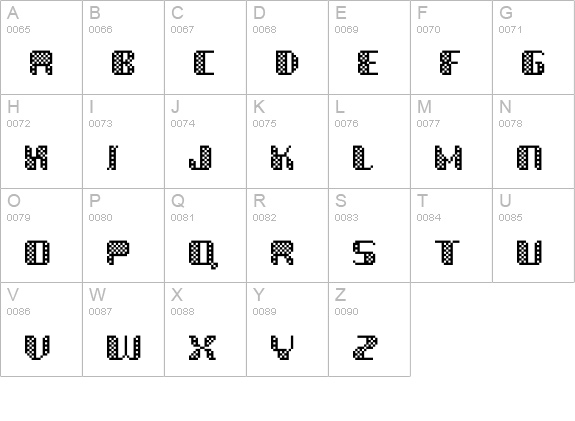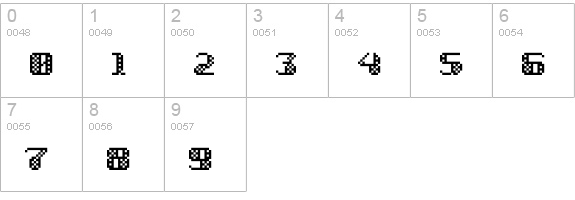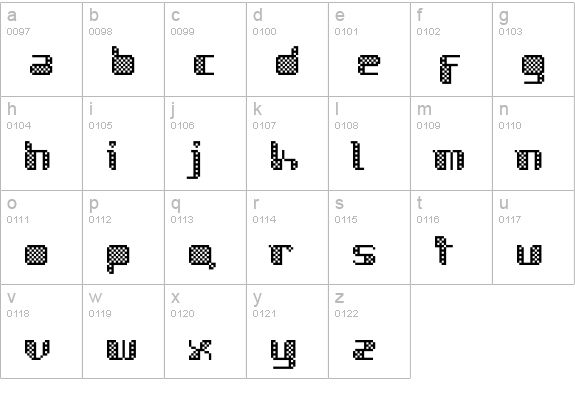
PixetlHard Font Details
PixetlHard font is a stunning display typeface that exudes a modern and edgy vibe. With its sharp lines and futuristic design, this font is perfect for making a bold statement in your designs. The unique combination of geometric shapes and sleek curves gives PixetlHard a distinct look that will surely capture attention. What makes PixetlHard font even more appealing is that it is available for free download at FontsMarket.com. Whether you're working on a branding project, poster design, or website layout, this font is a versatile choice that will add a touch of sophistication to your work. Don't miss out on the opportunity to use PixetlHard font to elevate your designs to the next level. Download it now and unleash your creativity!